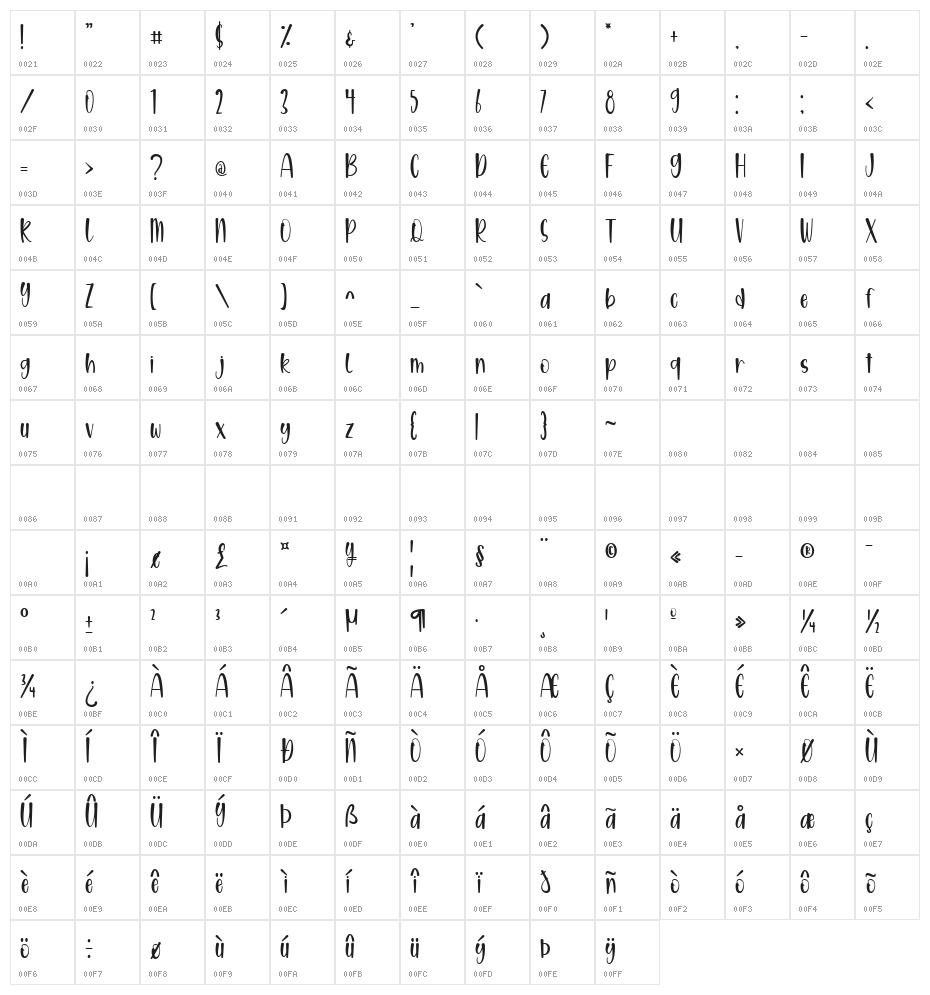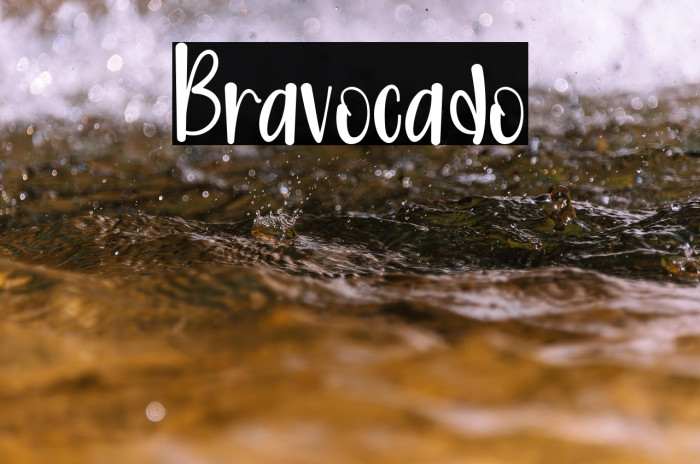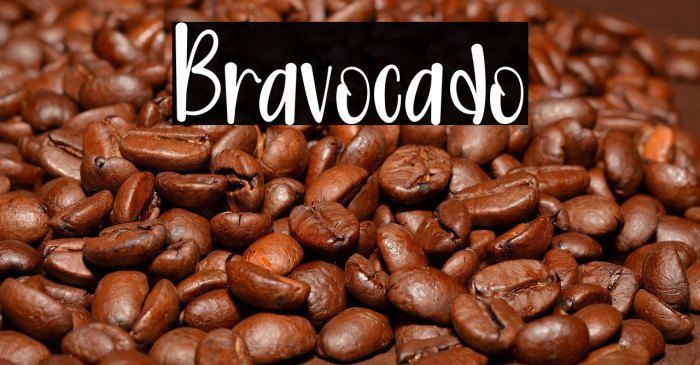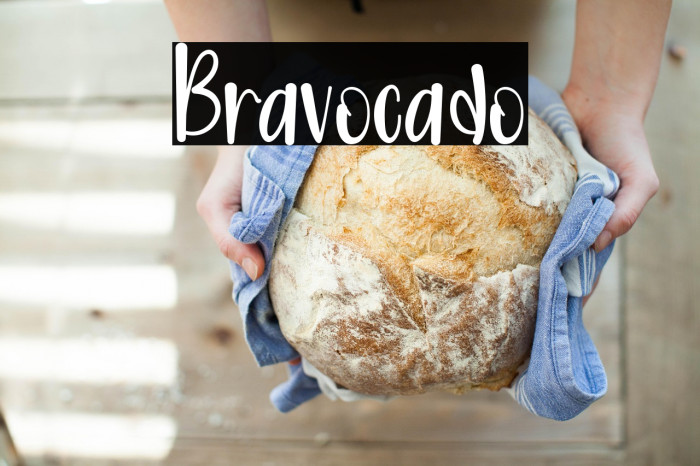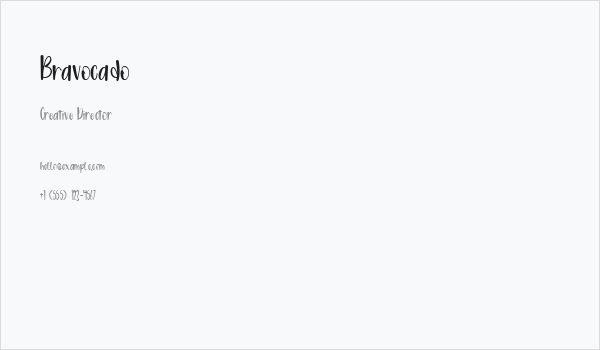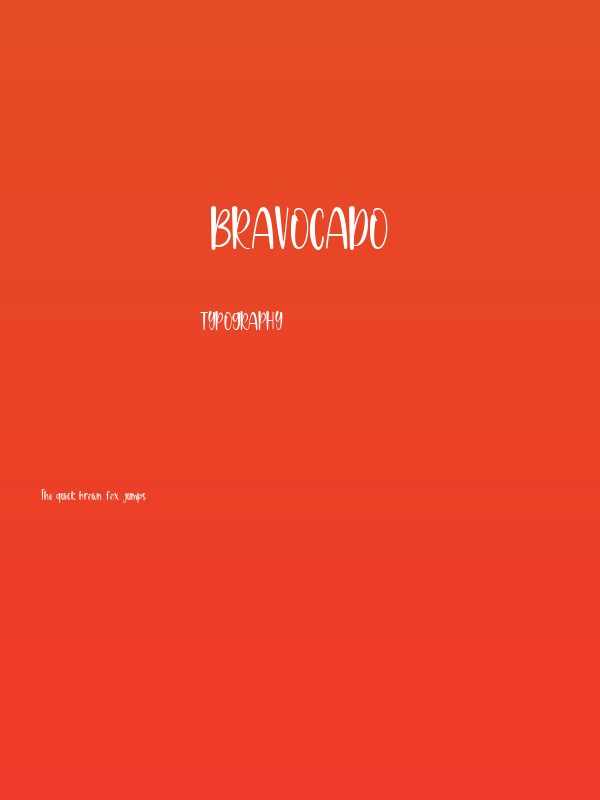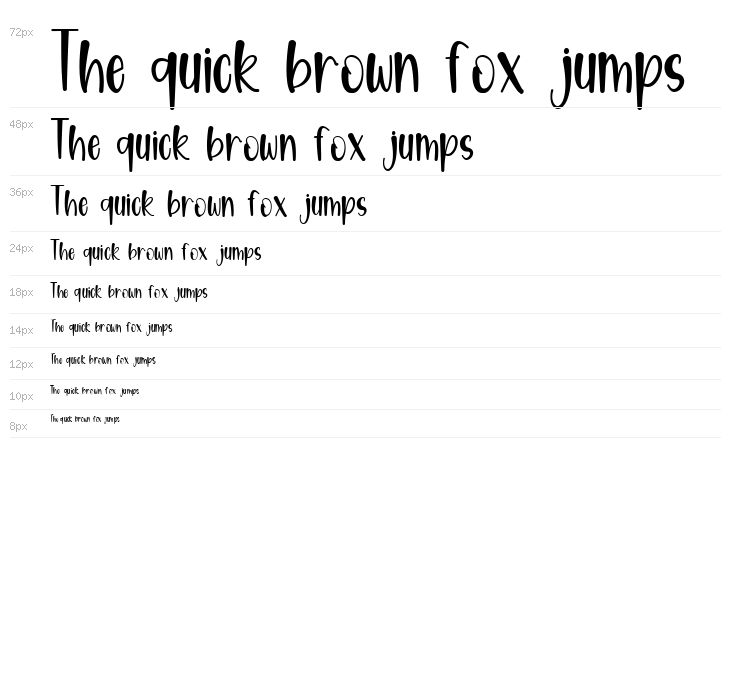
Bravocado Font
Bravocado Description
This font features a playful and whimsical style with a handwritten appearance. The letters are bold and slightly irregular, giving it a casual and friendly vibe. The strokes are smooth and rounded, with a consistent thickness that adds to its approachable character. The uppercase and lowercase letters maintain a cohesive look, while the numerals and special characters complement the overall design. This font is perfect for projects that require a touch of personality and charm.
| Use Case | Headlines, Logos, Social Media |
| Proposed Projects | Ideal for greeting cards, children's books, playful branding, and social media graphics. |